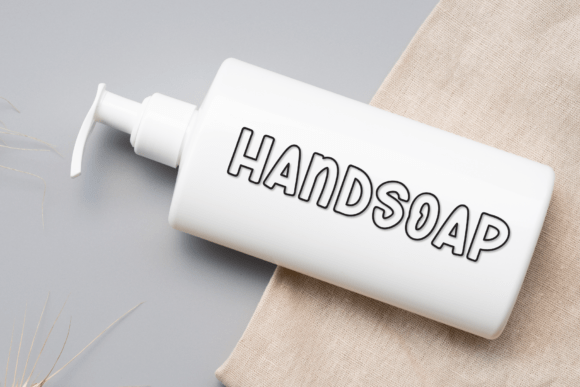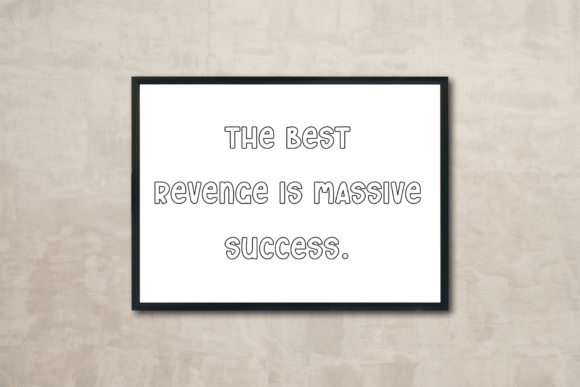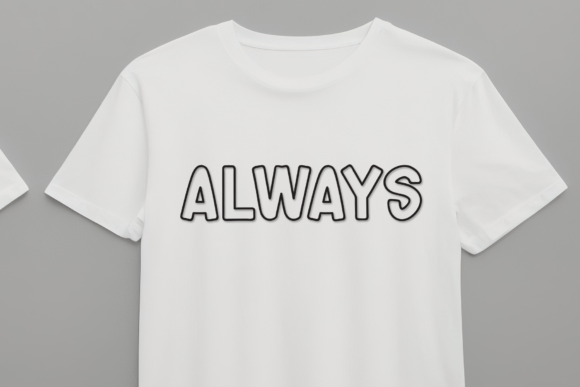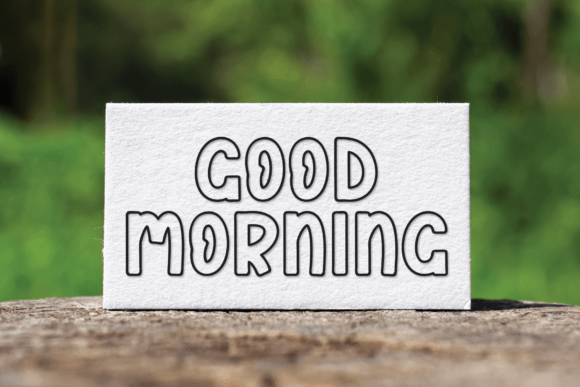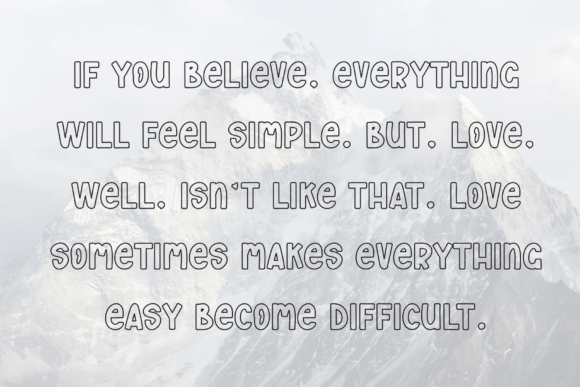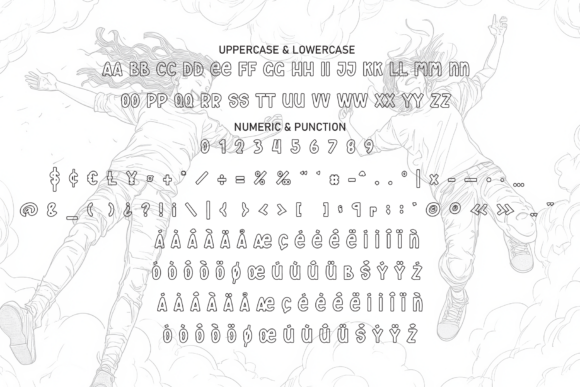
Introduction to Jumping Outline Font
Have you ever stumbled upon a design element that takes your breath away? Perhaps it was a beautifully crafted illustration, a stunning color palette, or a typography that perfectly captures the essence of your creative project? For many designers, it’s those little moments of discovery that spark inspiration and propel our work to new heights. And today, we’re thrilled to introduce you to a game-changing design resource that’s sure to captivate your senses: the enchanting Jumping Outline Font.
As a valuable resource for designers, the Jumping Outline Font offers a transparent background, allowing you to seamlessly integrate it into your creative project. Its buoyant charm is sure to engage your audience, making it an ideal choice for any design that requires a lighthearted touch. So why wait? Dive into the world of Jumping Outline Font and discover the magic it can bring to your designs.
Key Features of Jumping Outline Font
- Unique Outline Design: The Jumping Outline Font features a distinctive outline design that adds a creative touch to any project.
- High-Quality Graphics: This font boasts high-quality graphics that ensure crisp and clear visuals, perfect for high-resolution designs.
- Perfect for Creative Projects: The Jumping Outline Font is ideal for creative projects that require a unique and eye-catching font, such as logos, graphics, and typography-based designs.
Honest Review: Jumping Outline Font
- ✨ High-quality vector design that’s perfect for logos, icons, and graphics.
- ⚠️ Limited character set, which may not be suitable for longer text-based projects.
Overall, I’m really impressed with the Jumping Outline Font. It’s a great design resource for any creative project, and the free download is a huge bonus. While it may have some limitations, it’s a great addition to any designer’s toolkit.
The Jumping Outline Font is commonly used in graphic design, logo creation, and digital art. It’s also used in creating educational materials, presentations, and marketing materials. Its high quality and transparent background make it a popular choice among designers and artists.